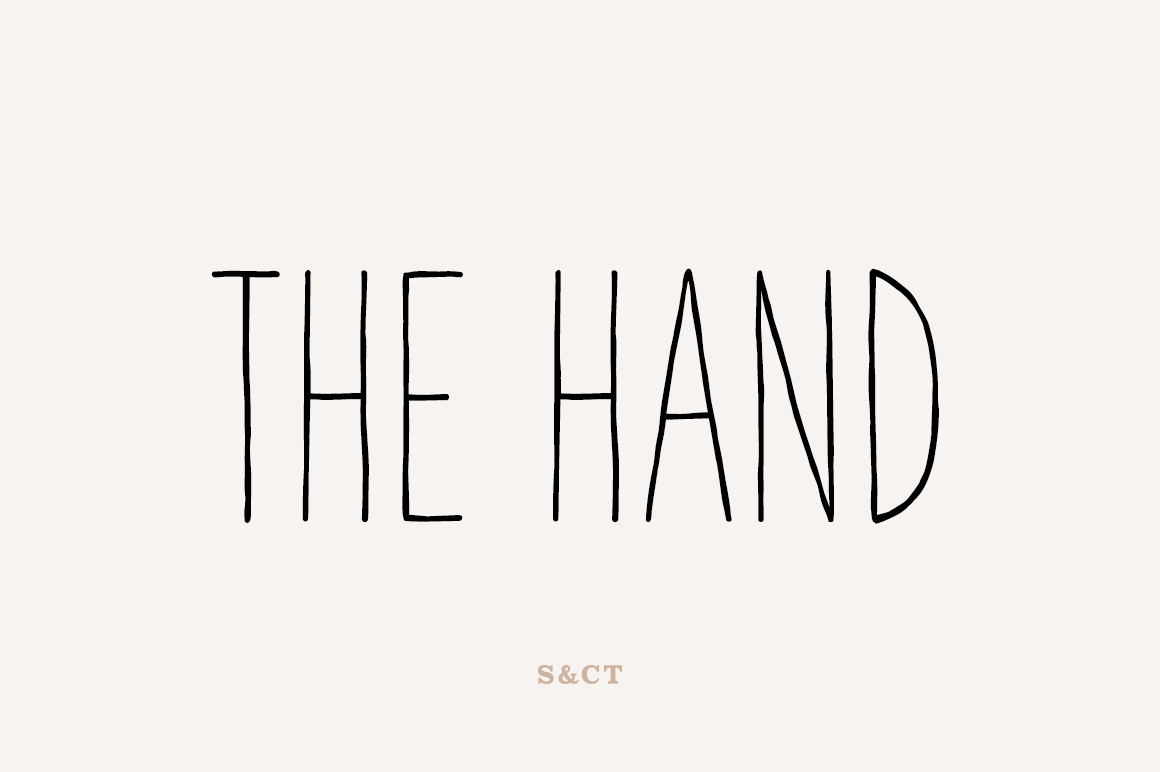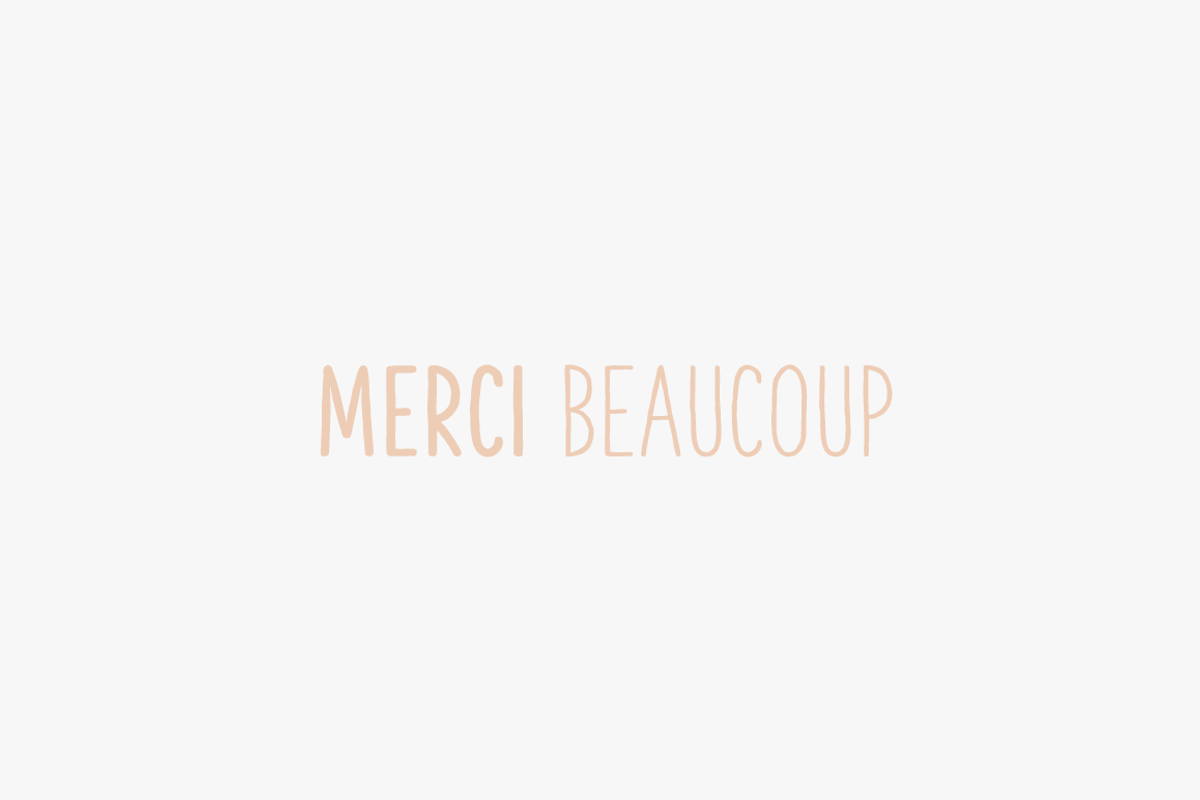
The Hand Font Collection (7 fonts)
The Hand is a handwritten font designed by Fanny Coulez and Julien Saurin in Paris. We wanted to create the most generic, readable and finely balanced handwritten font, to work well in every kind of design.
We also designed two playful dotted weights to add a fancy touch in your graphic design.